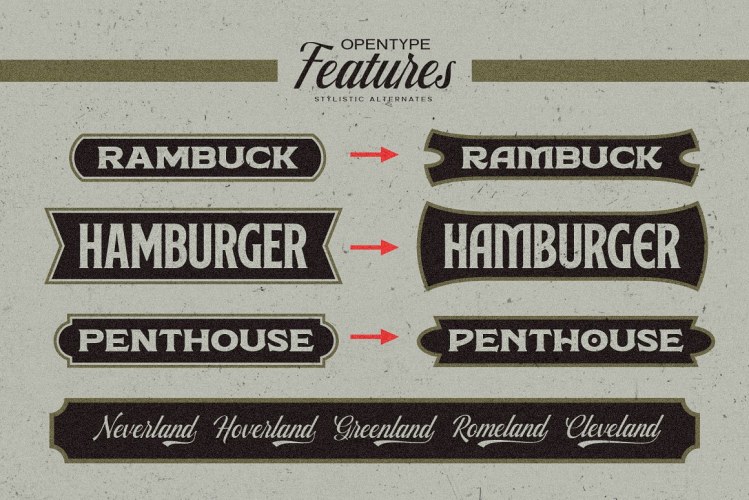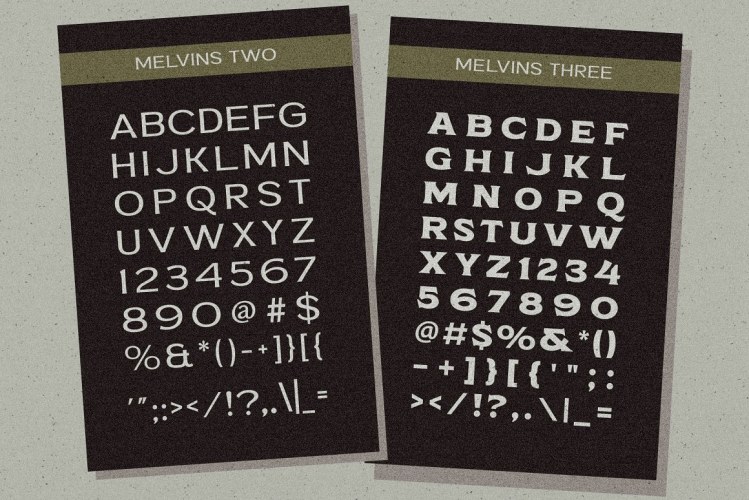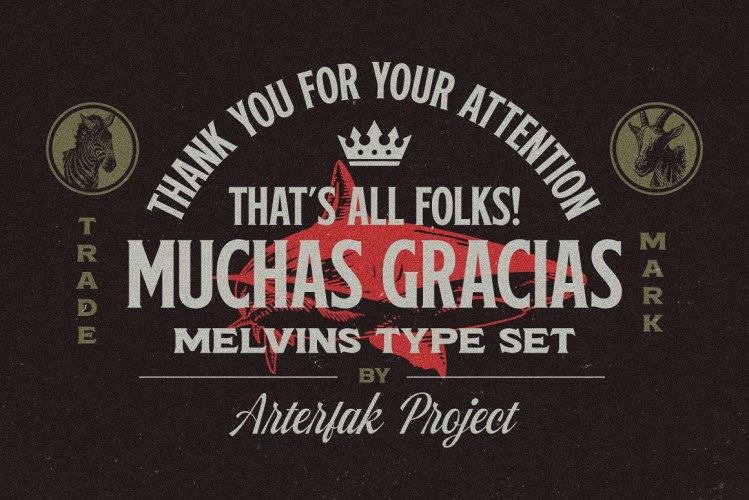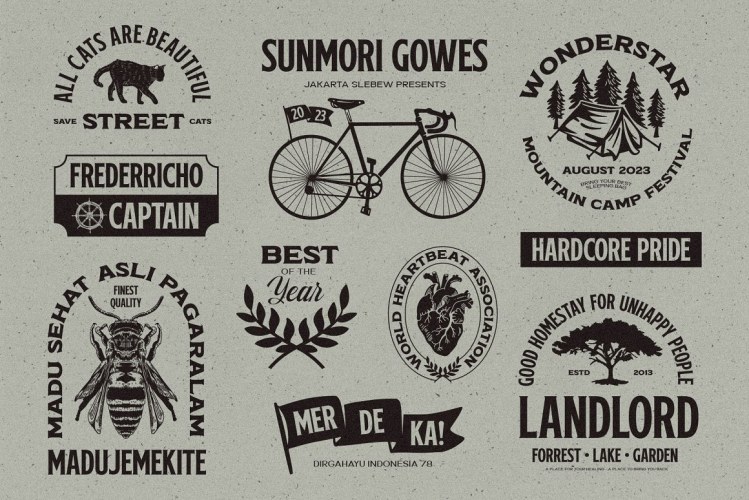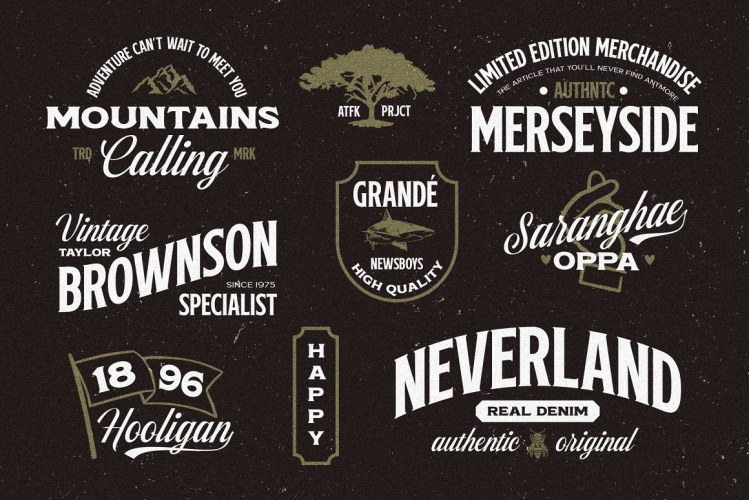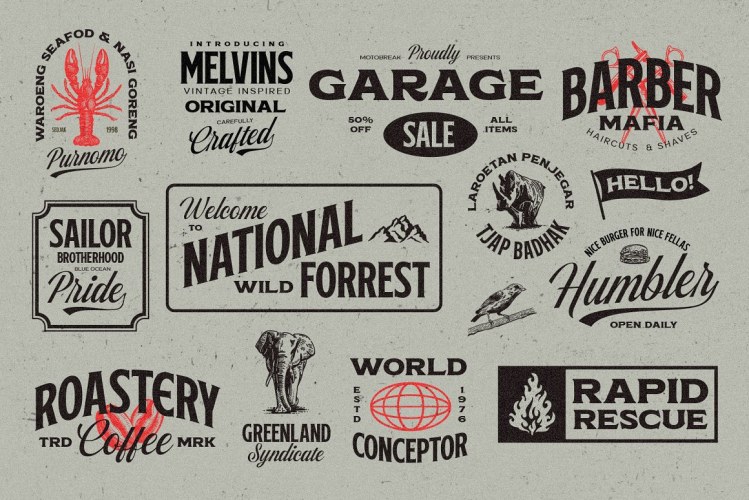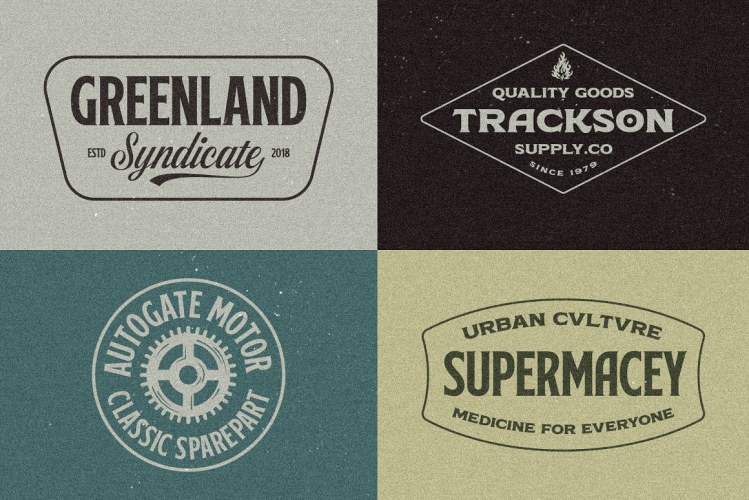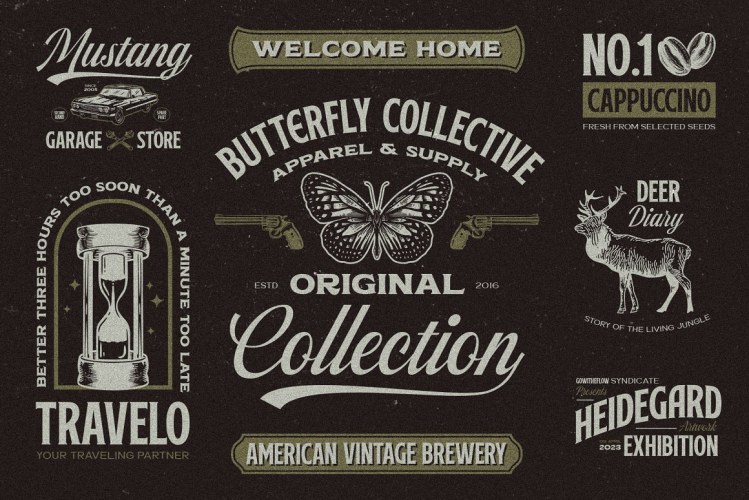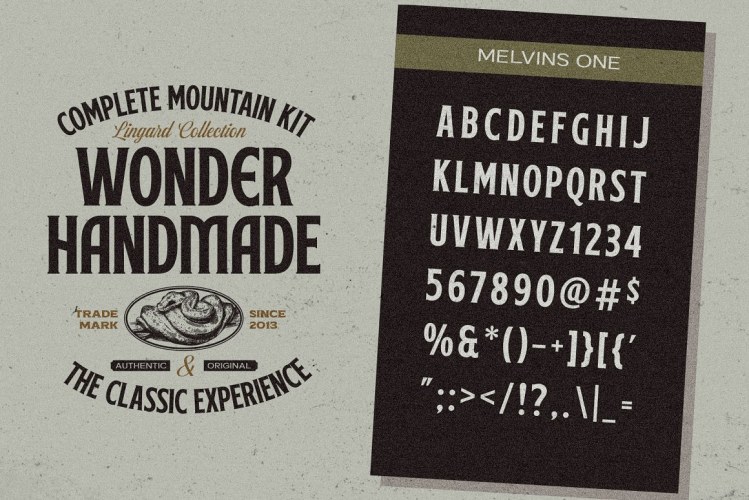
Melvins Font
Introducing Melvins – Font Set. The font combination which inspired by the vintage design. Includes 4 fonts with different styles that have unique looks, and are perfect pairs when combined.
This font set is carefully designed with high attention to give a feel of vintage, old-school, and classic. Melvins consist of Condensed, Light, Expanded, & Script styles that are versatile to be used for many design purposes.
Melvins Font Set including with 50+ vintage illustrations that will ease you to make a design in a sec and is also equipped with swash and alternate characters that you can mix and match to get a more vintage look. The perfect choice to be used to create logo, label, badges, logotypes, decals, shirts, posters, flyers, and etc.’
All capitals character set
Lowercase (script)
Numbers
Symbols & punctuation
Stylistic Alternates
Swashes (script)
Melvins Font is built for size: event posters, hero headlines and billboard-style layouts.
High contrast display type like Melvins Font reads instantly in thumbnails and motion graphics.